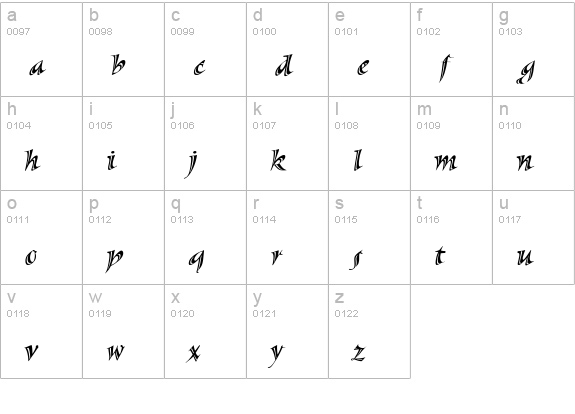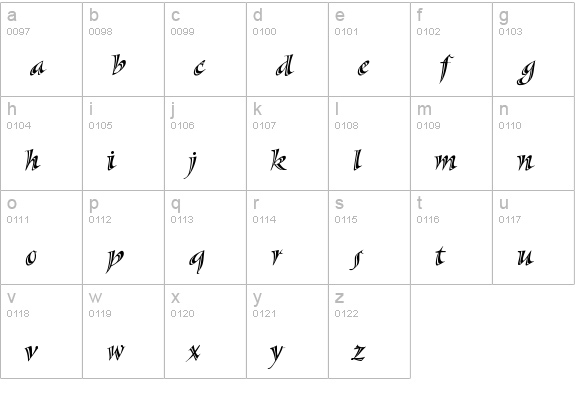
Sassafras-SxItalic font exudes elegance and sophistication with its stylish italicized design. The graceful curves and unique letterforms of this typeface make it perfect for adding a touch of class to any project. Whether you're designing invitations, branding materials, or editorial layouts, Sassafras-SxItalic will surely make a lasting impression. What's even better is that this exquisite font is available for free download at FontsMarket.com. Now you can easily enhance your designs with this premium typeface without any cost. Don't miss out on the opportunity to elevate your projects with the timeless beauty of Sassafras-SxItalic font. Download it today and see the difference it can make!